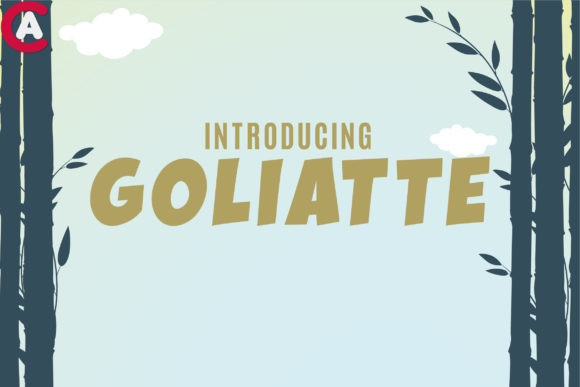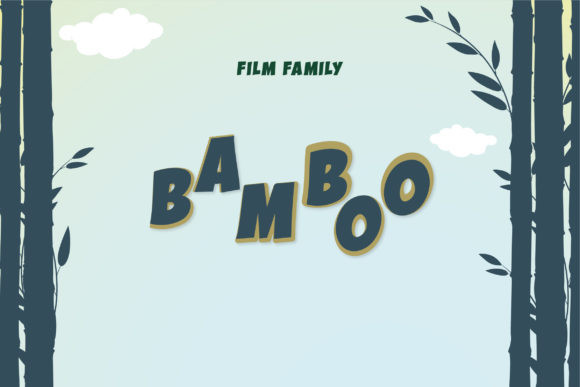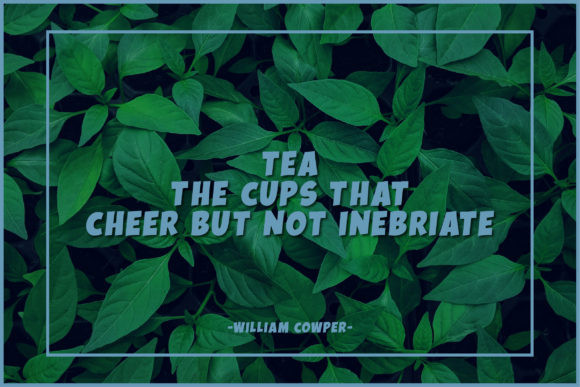
Goliatte Font
Goliatte is a bold and funky sans serif font that will look particularly great in any comic- or cartoon designs. It will deliver any message with personality and charm.